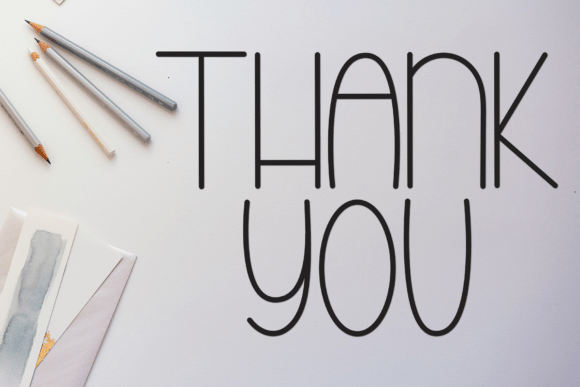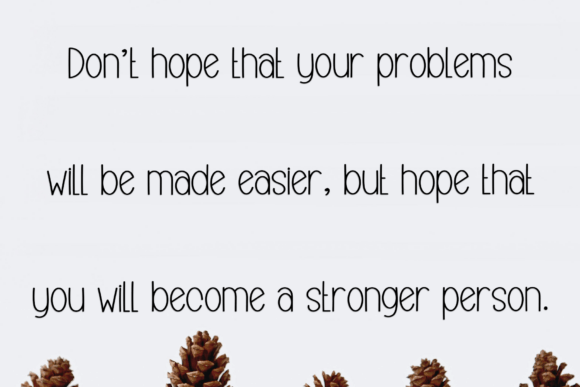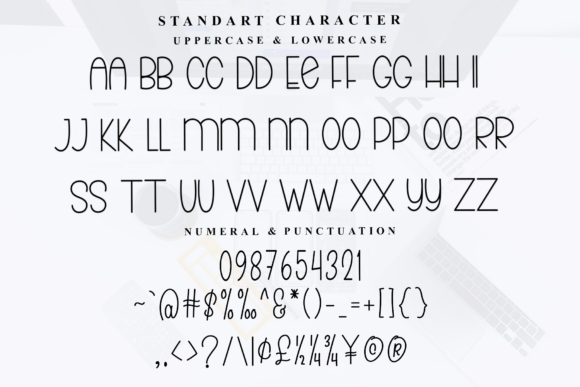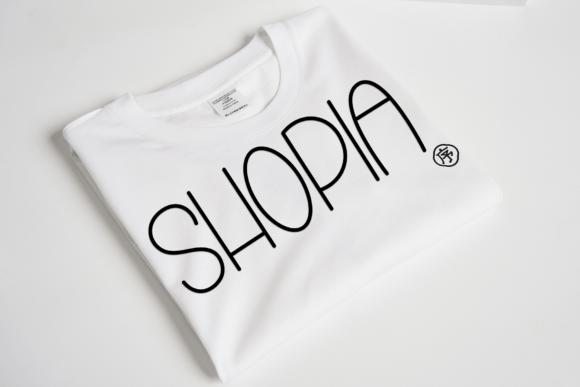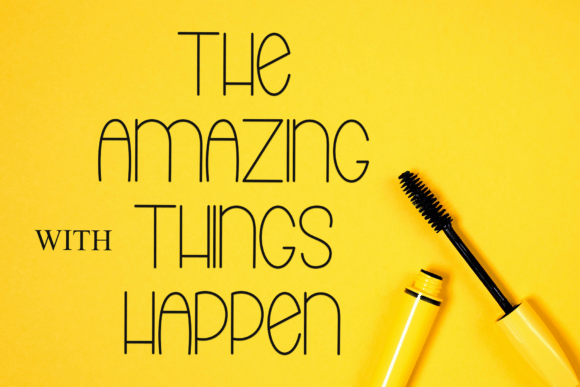
Introduction to School Mother Font
Have you ever stumbled upon a font that makes you feel like a kid in a candy store? For designers, discovering the perfect font can be a game-changer, and today we’re excited to introduce you to the School Mother Font – a beautiful and eye-catching typeface that’s sure to bring a smile to your face.
This charming font is more than just a pretty face; its soft, unique touch makes it a valuable resource for any design project. With its distinctive strokes and various characters, the School Mother Font is perfect for crafting unique and creative works that will stand out from the crowd.
Key Features of School Mother Font
- High-quality design resource with a unique, playful style suitable for creative projects.
- Features a transparent background, making it easy to use in a variety of design scenarios.
- Includes a range of characters, including uppercase and lowercase letters, numbers, and special characters.
- Font size: 200-800 points; Font resolution: 300 DPI; Font style: Casual, Script.
- Perfect for use in educational materials, such as school projects, posters, and flyers.
- Designed to be versatile and easy to read, making it ideal for use in a variety of creative projects.
Honest Review: School Mother Font
One of the things that stood out to me is the transparent background, which allows for seamless integration into creative projects. The font is perfect for those who want to add a touch of whimsy and playfulness to their designs.
Here are some things that work well with the School Mother Font:
- ✨ Unique style that sets it apart from other fonts
- ✨ High quality that ensures crisp and clear text
- ⚠️ Limited character set, which may not be suitable for extensive text-based projects
- ⚠️ Not ideal for formal or professional designs, as it may come across as too playful
Overall, I’m impressed with the School Mother Font. While it may have its limitations, it’s a great resource for designers looking to add some creativity to their projects. With its high quality and unique style, it’s definitely worth checking out.
Tips for Getting the Most Out of School Mother Font
Use the School Mother Font in combination with other design elements to create a visually appealing design. Experiment with different font sizes and colors to get the most out of this free download.
The School Mother Font is perfect for educational projects, such as creating presentations, flyers, and brochures for schools and universities. It’s also great for creating invitations, posters, and social media graphics for events related to education and child development.